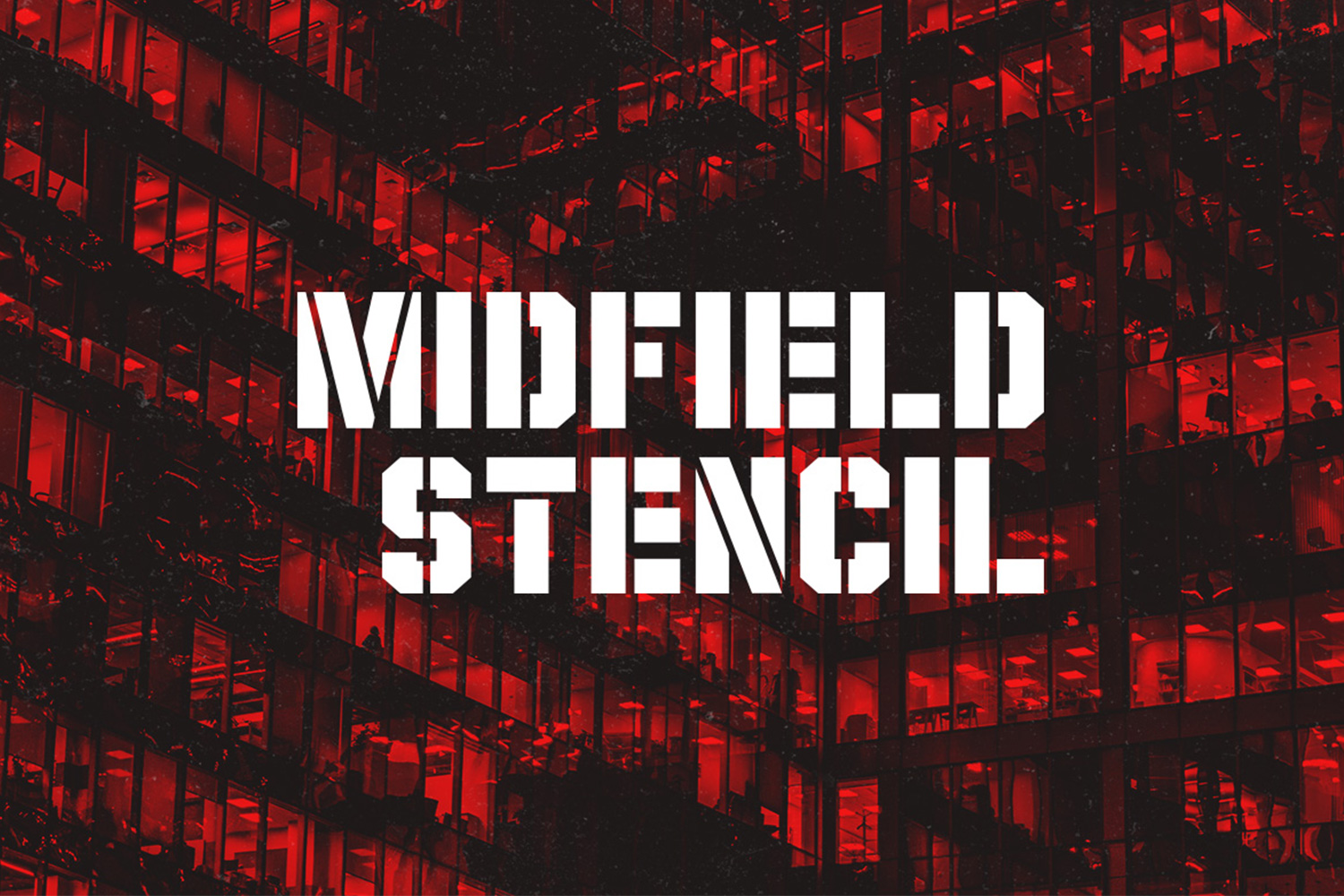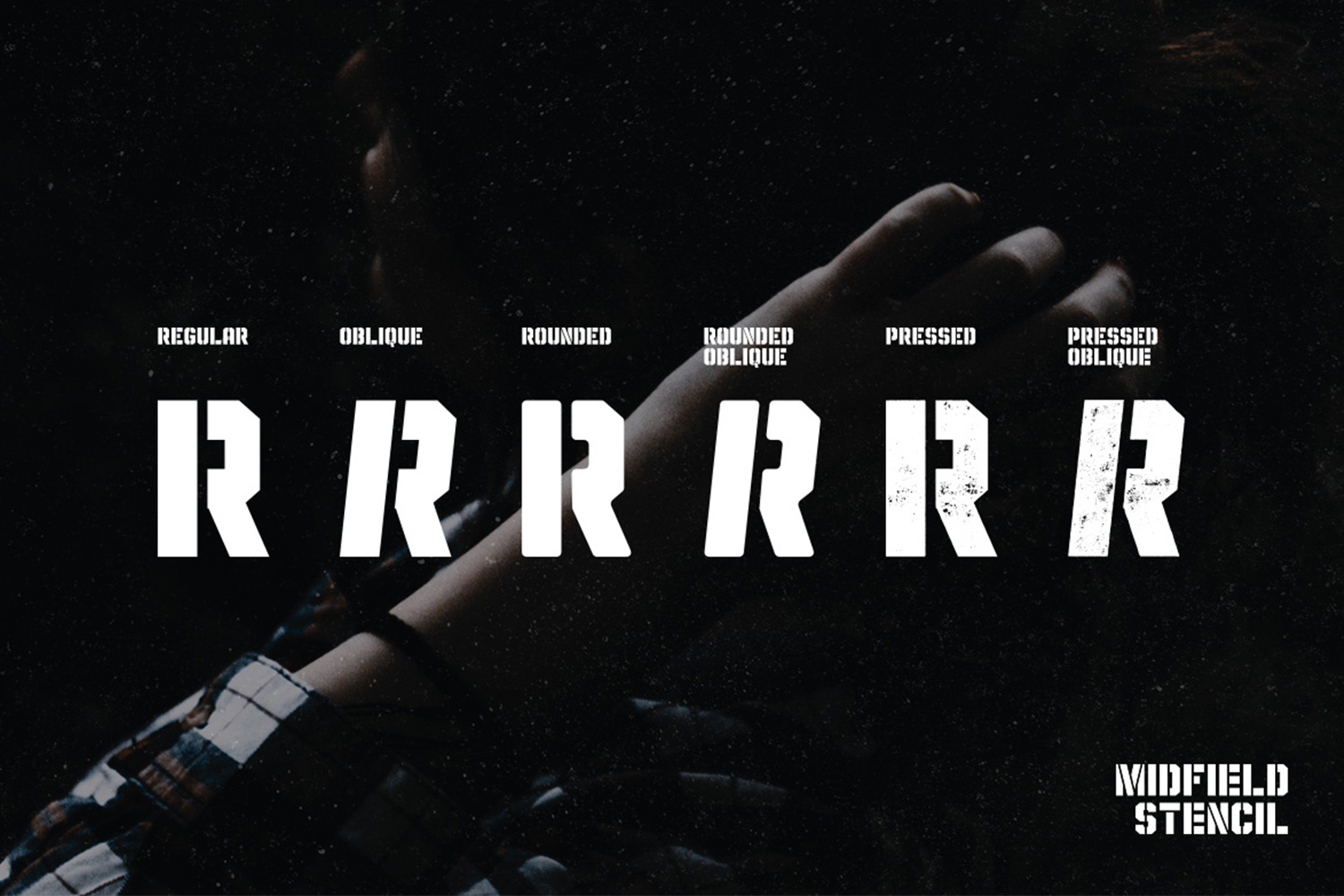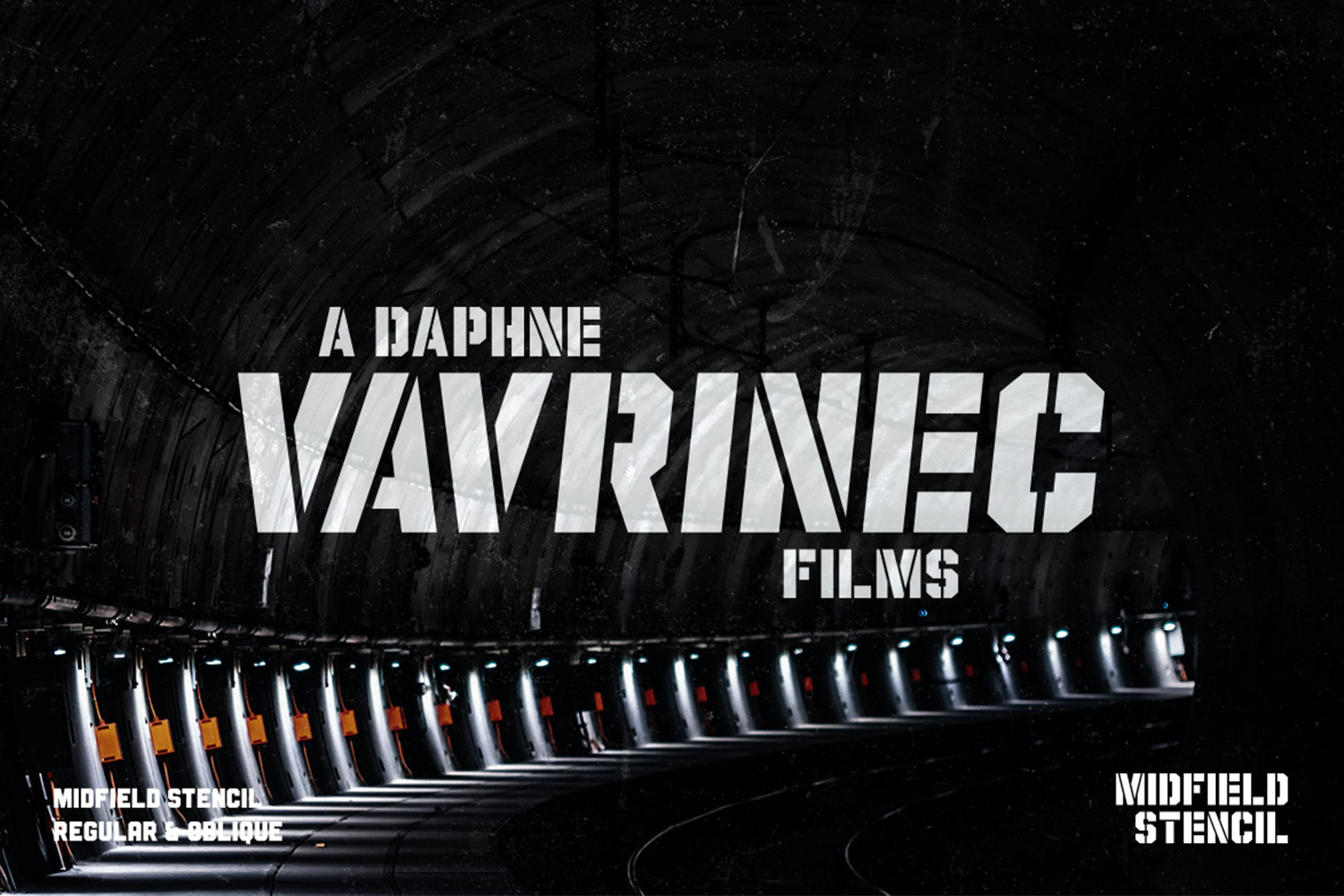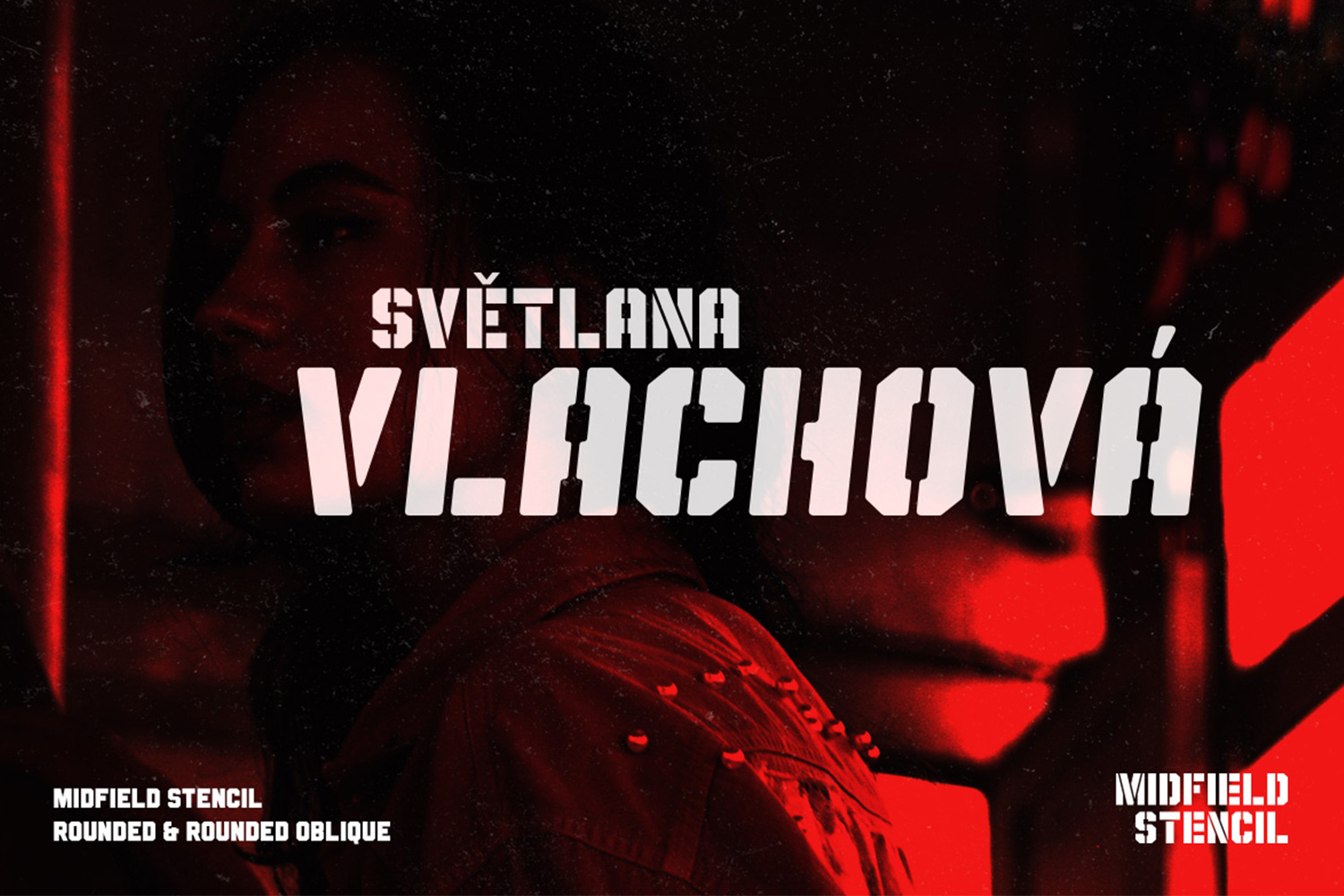
Midfield Stencil Font: A Bold & Urban Display Font for Logo Design
About the Midfield Stencil Font
Add a touch of class to your work with the Midfield Stencil Font, a truly exceptional typeface. Midfield Stencil Family is All Caps display typeface with solid, masculine, urban, sporty & bold character. 390+ glyphs each styles with Multilanguage support, Contextual Alternates – Ready for the game!
Each glyph is very well suited to make an interesting quote, headline & striking poster design. This font is perfect for logos, badges, clothing, signage, posters, and much more!
Midfield Stencil excels in headline applications, logos, and short, impactful text for branding and signage where its bold, assertive personality shines. It’s ideal for projects with a sporty, urban, or masculine aesthetic, such as apparel designs, posters promoting athletic events, or the branding of a high-energy product. However, its condensed nature and all-caps styling make it unsuitable for body text or extended reading.
Avoid using it for UI elements or lengthy paragraphs; legibility suffers at smaller sizes. Pairing it with a clean sans-serif like Open Sans for body copy offers excellent contrast and readability. For a more refined look, consider pairing it with a classic serif font such as Garamond for a sophisticated contrast of styles. A geometric sans-serif such as Futura would also complement its strong, structured forms.
The overall mood is energetic and confident; it projects strength and dynamism. This makes it a powerful choice for brands seeking to communicate boldness and action.
Midfield Stencil Font Usage Examples